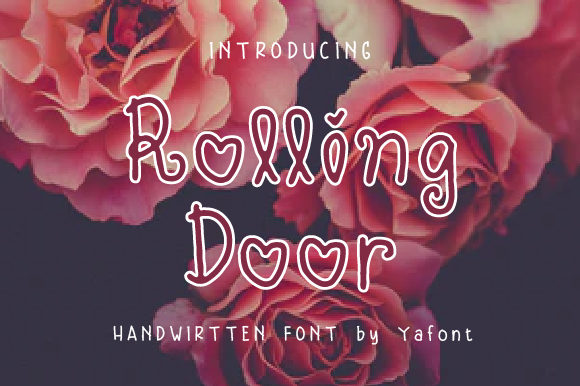
Rolling Door
About Rolling Door Font
Rolling Door is a romantic and delicate handwritten font. Add it to each of your favorite design ideas, and make them come alive!